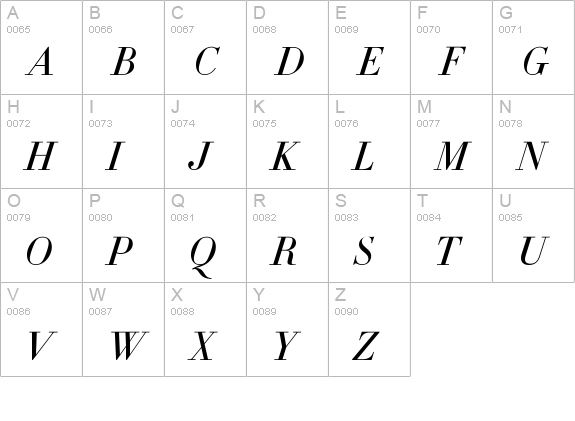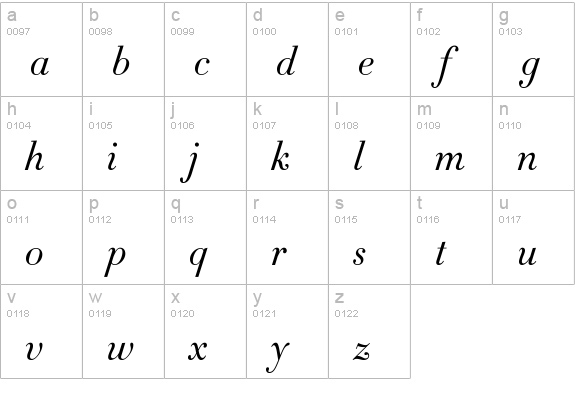
Didot-HTF-L11-Light-Ital Font Details
Didot-HTF-L11-Light-Ital is a refined, elegant variant in the Didot typeface family \xE2\x80\x94 well suited to elegant body text, refined sub-headings, and luxury branding.
The Didot-HTF-L11-Light-Ital font is a beautifully crafted typeface that exudes elegance and sophistication. Its delicate strokes and graceful curves make it ideal for conveying a sense of refinement in design projects. This font is perfect for use in editorial design, luxury branding, and other projects where a touch of class is desired. The light italic weight of Didot-HTF-L11-Light-Ital adds a subtle touch of style and flair to any text, making it stand out while maintaining a sense of subtlety. Its versatility allows it to be paired with a variety of other typefaces, adding a touch of sophistication to any design. Best of all, Didot-HTF-L11-Light-Ital is available for free download at FontsMarket.com. This means that you can easily access this beautiful font to elevate your designs without any cost. Don't miss out on the opportunity to enhance your projects with the timeless beauty of Didot-HTF-L11-Light-Ital.